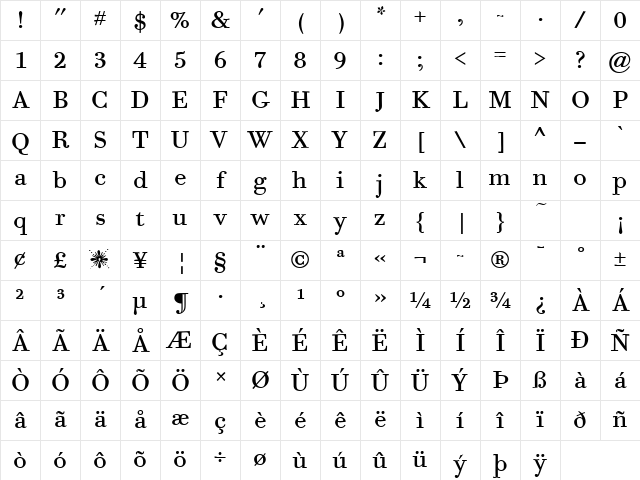
Bodoni Six ITC TT Book
Design Context for Bodoni Six ITC TT
Bodoni Six ITC TT is a composed and adaptable typeface that performs quietly and consistently across a wide range of design contexts.